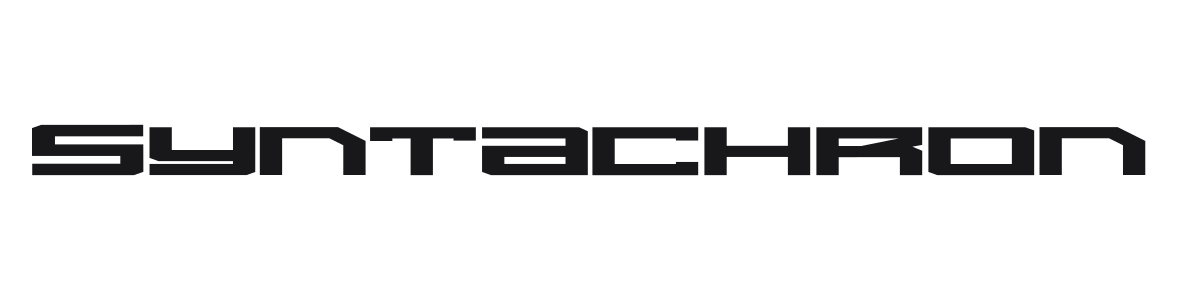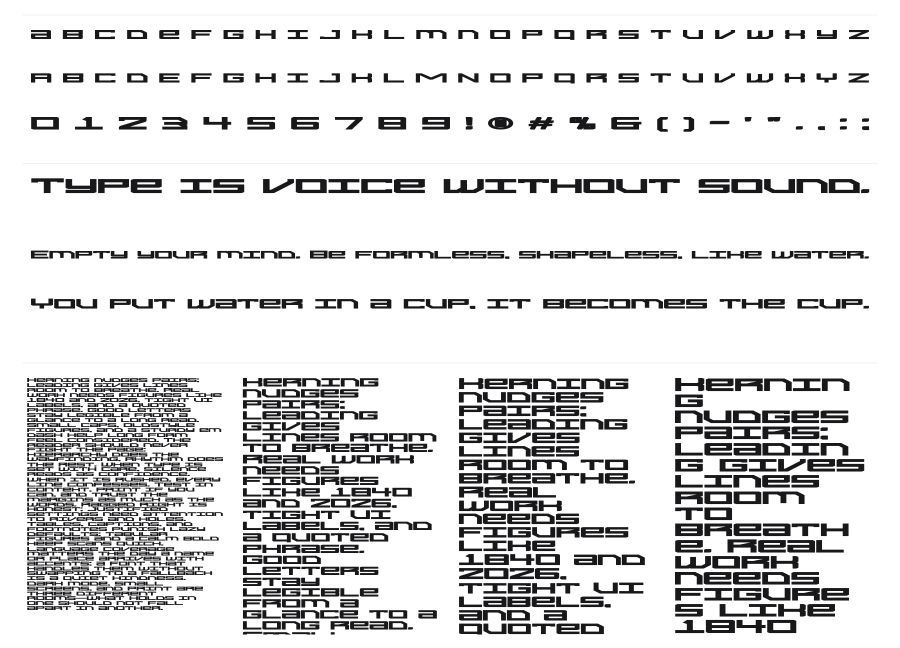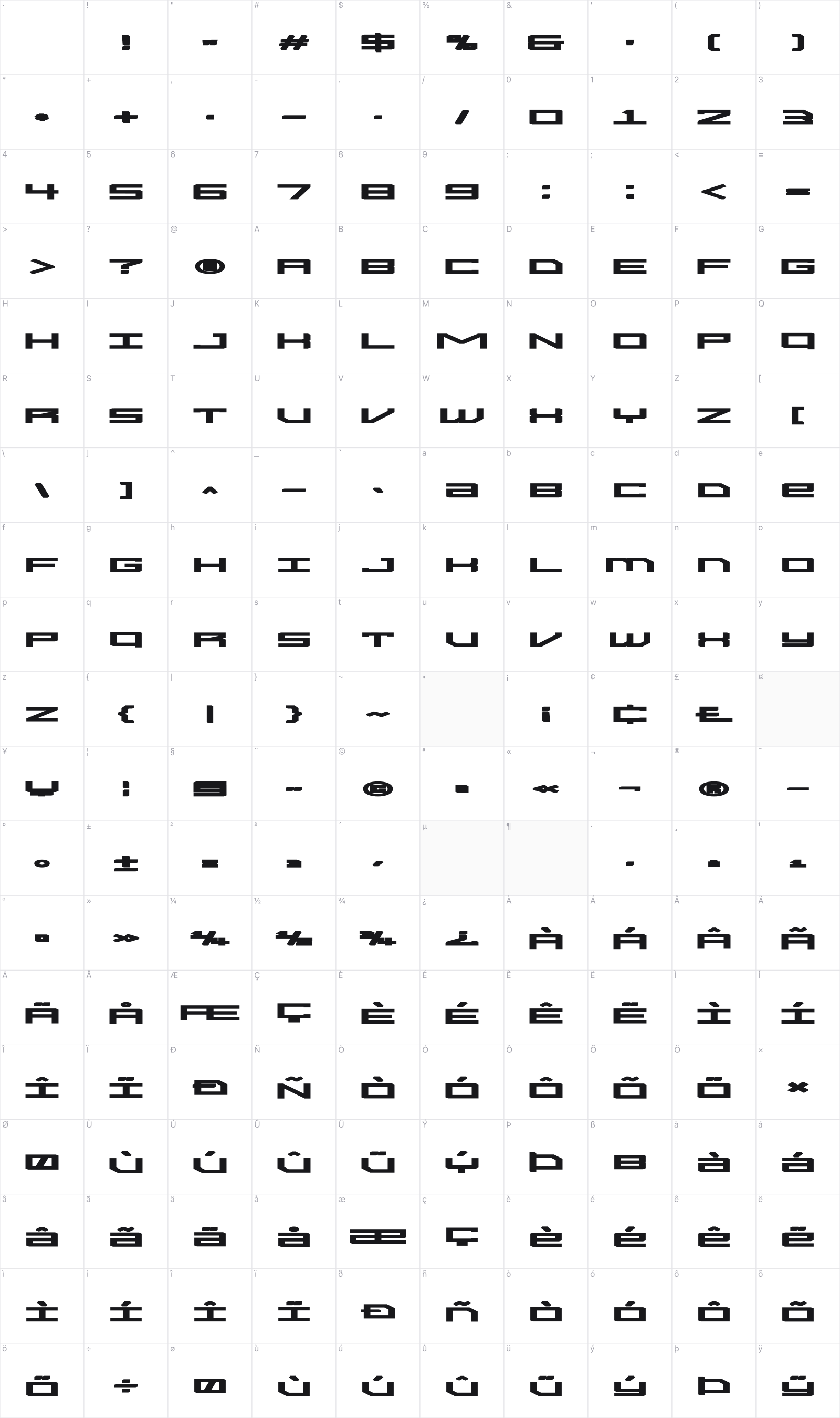
Syntachron
Syntachron is a bold monospaced typeface with a retro-futuristic, mecha-inspired personality built from heavy geometric strokes and sharp diagonal terminal cuts. Its uniform weight and squared construction give it a mechanical, almost industrial authority at display sizes. With 12 variable styles and Cyrillic support, it covers a wide range of high-impact design applications.